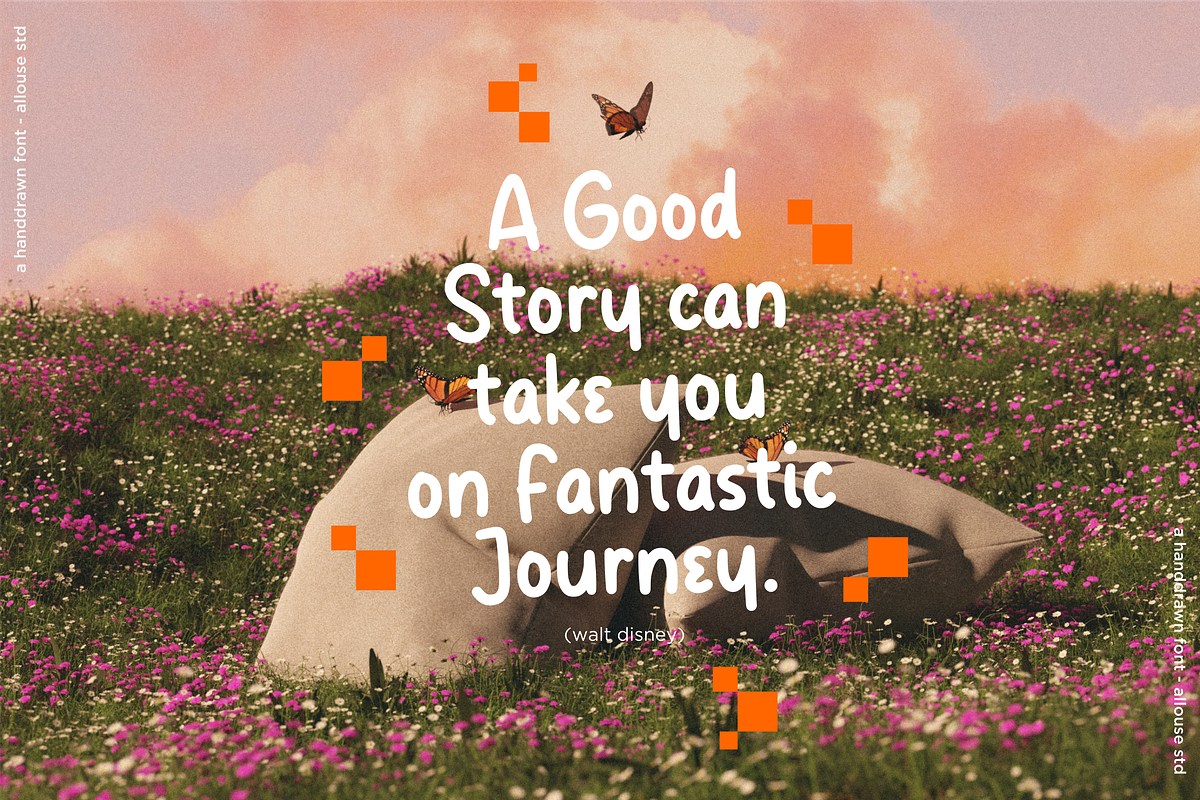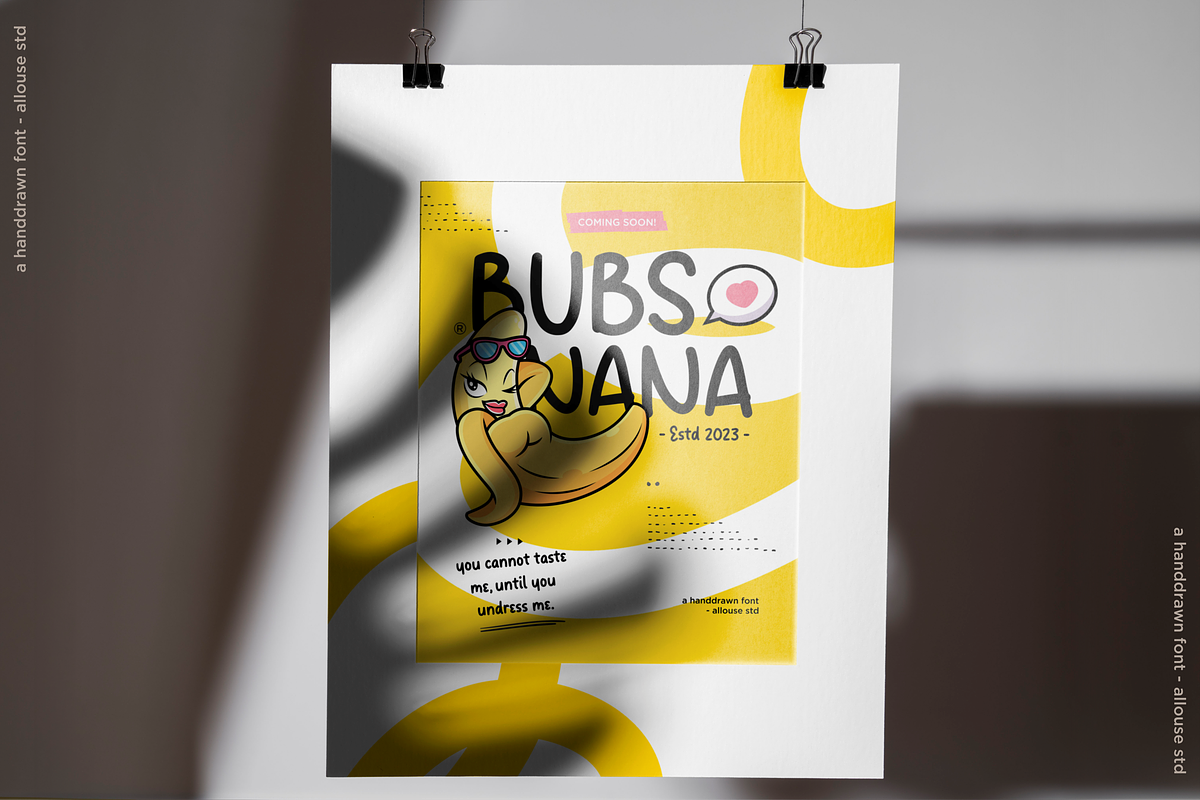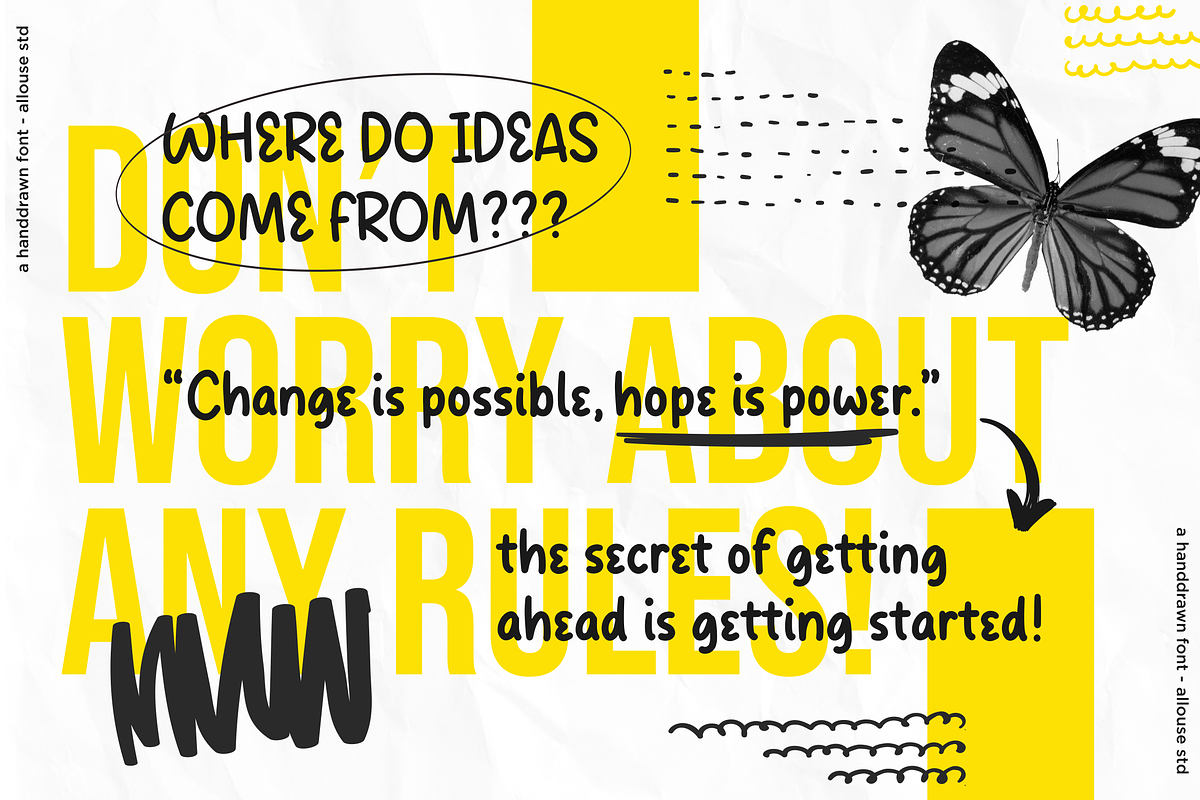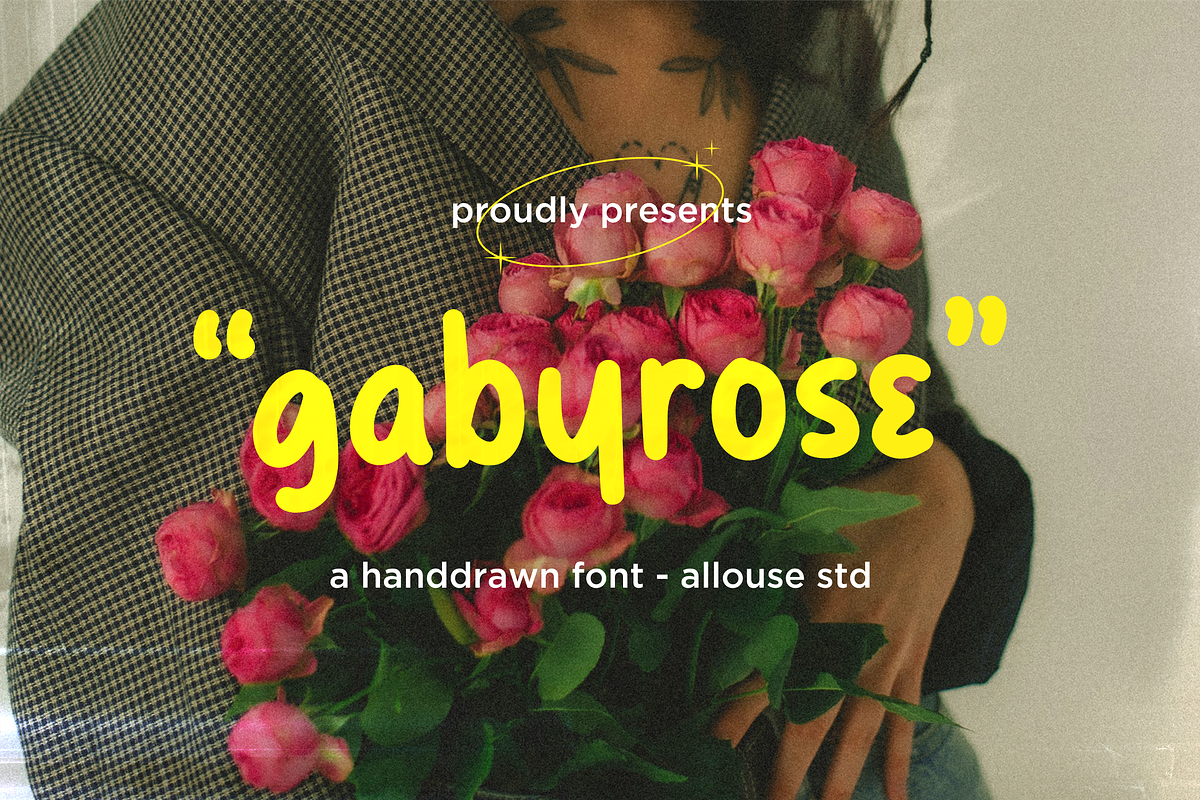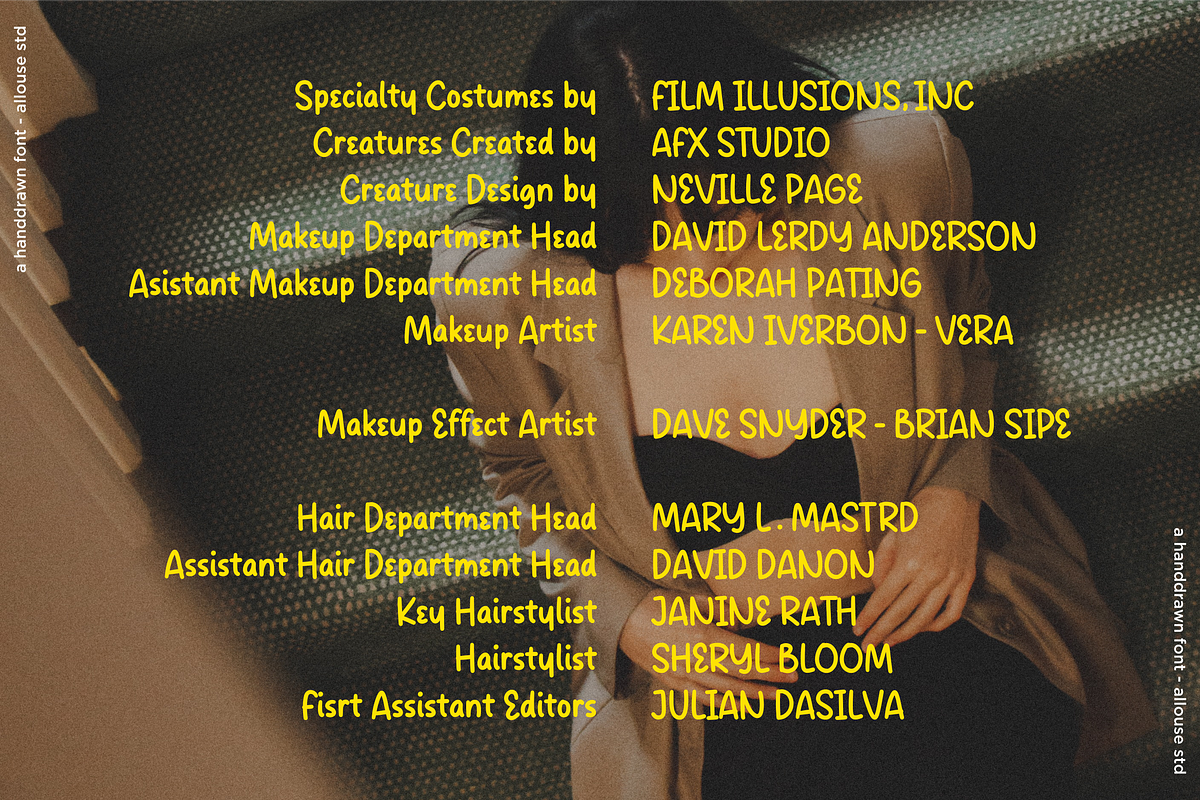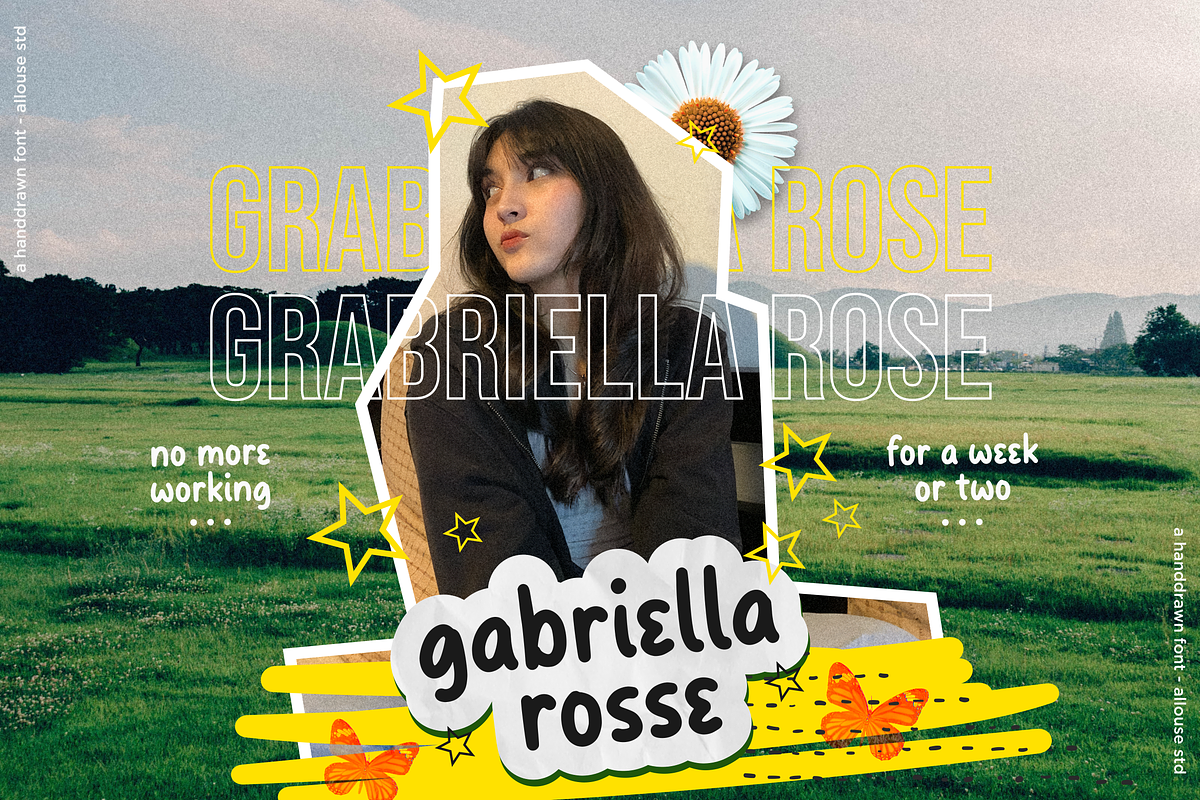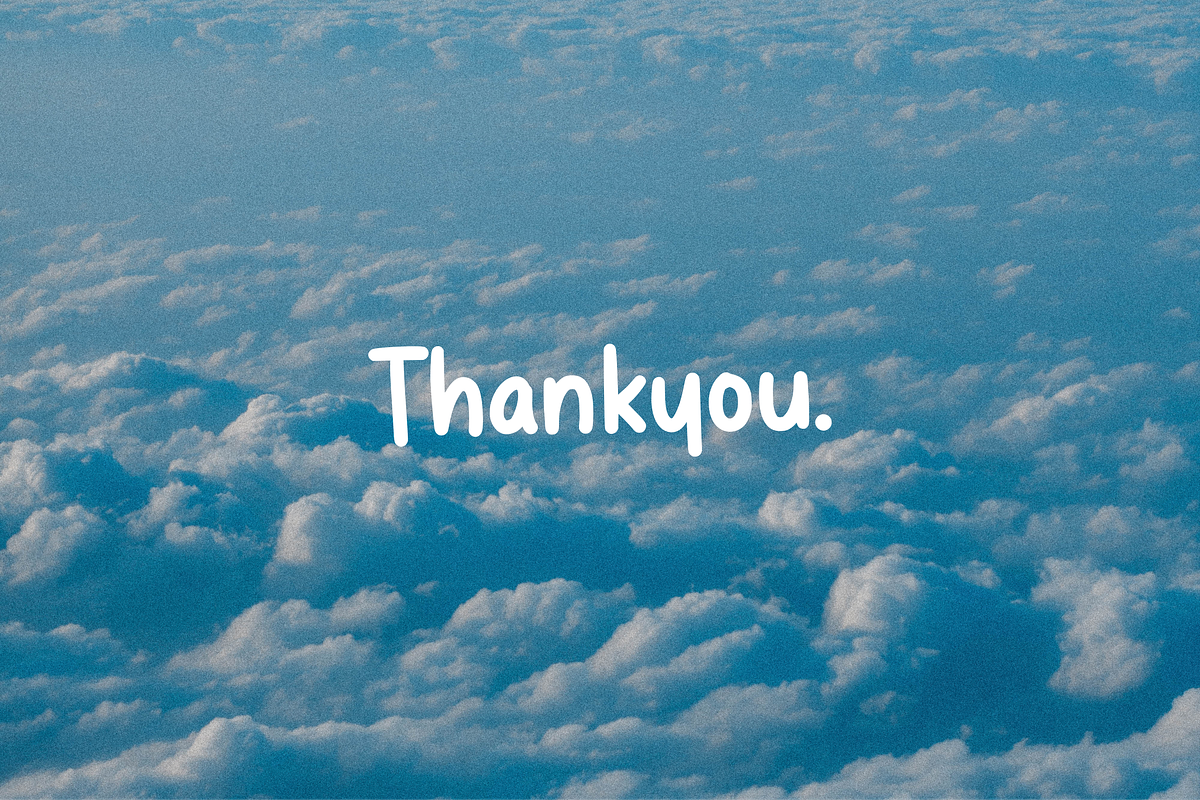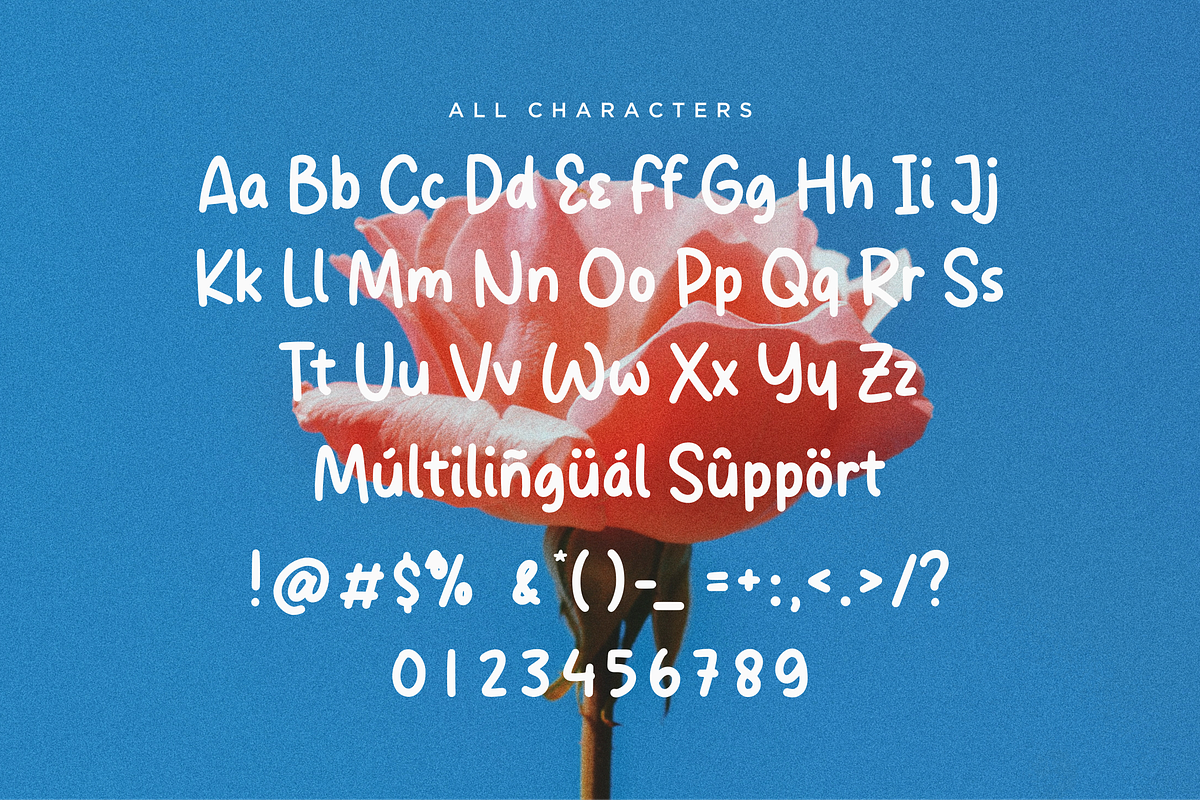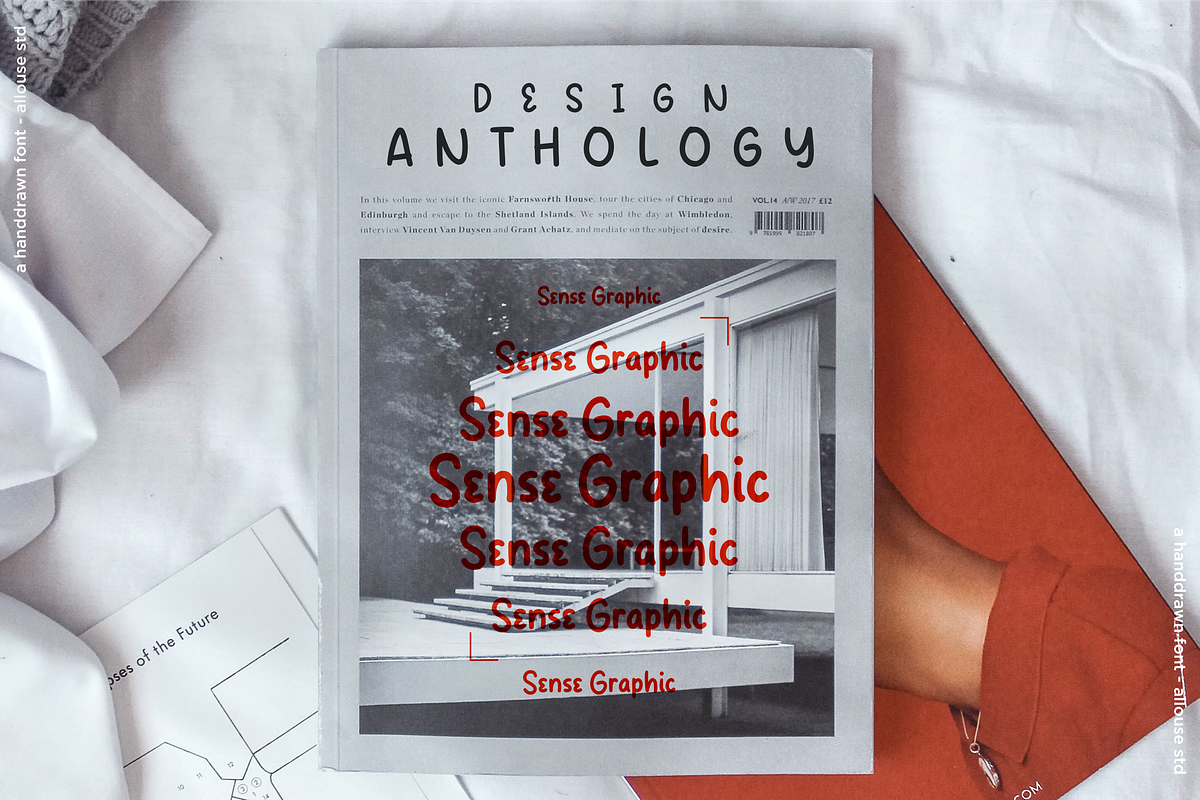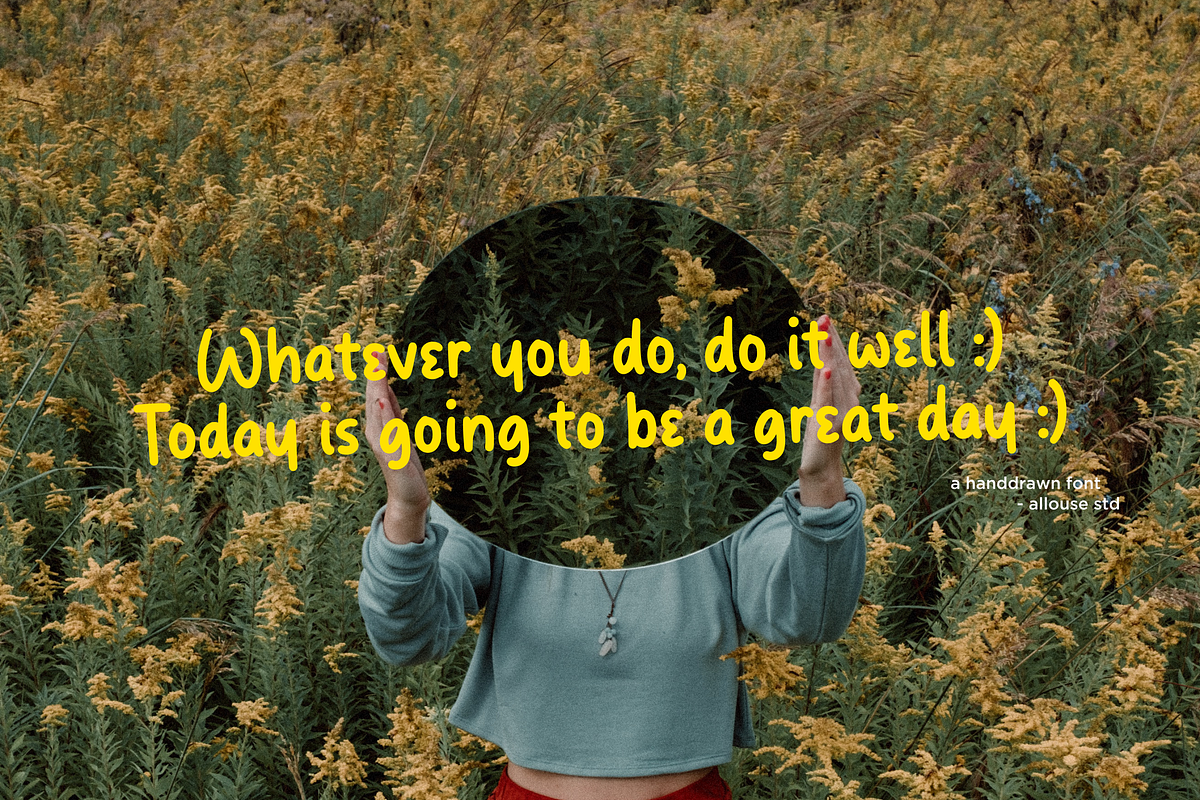
Gabyrose A Monoline Hand drawn
Proudly Presenting, Gabyrose A Monoline Hand drawn Font.
Gabyrose is perfect for any titles, logo, product packaging, branding project, megazine, social media, wedding, or just used to express words above the background.
Gabyrose also come with Multi-Lingual Support.